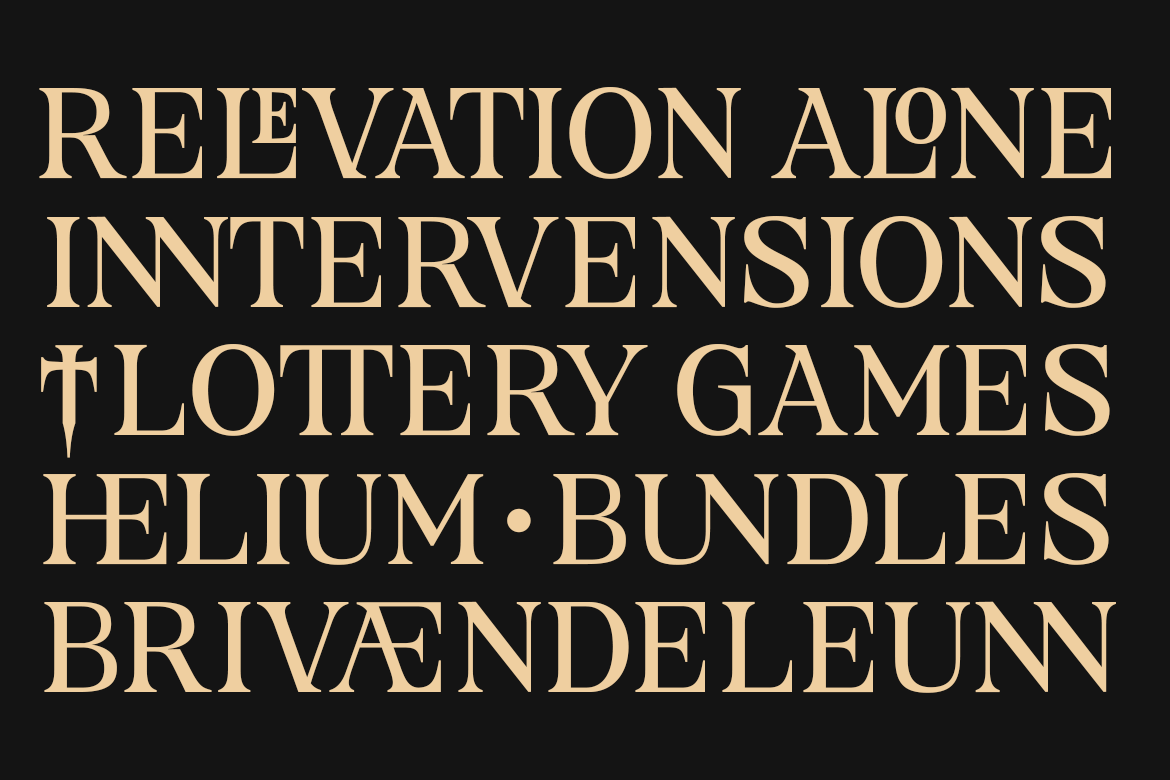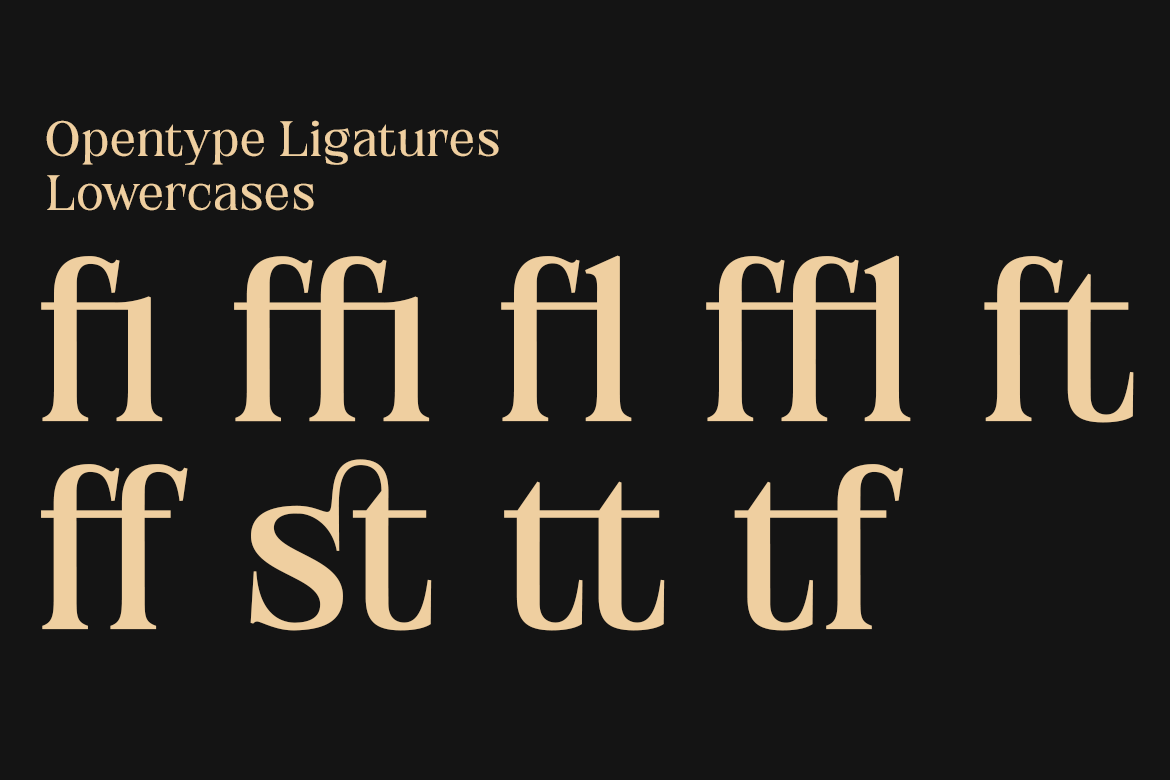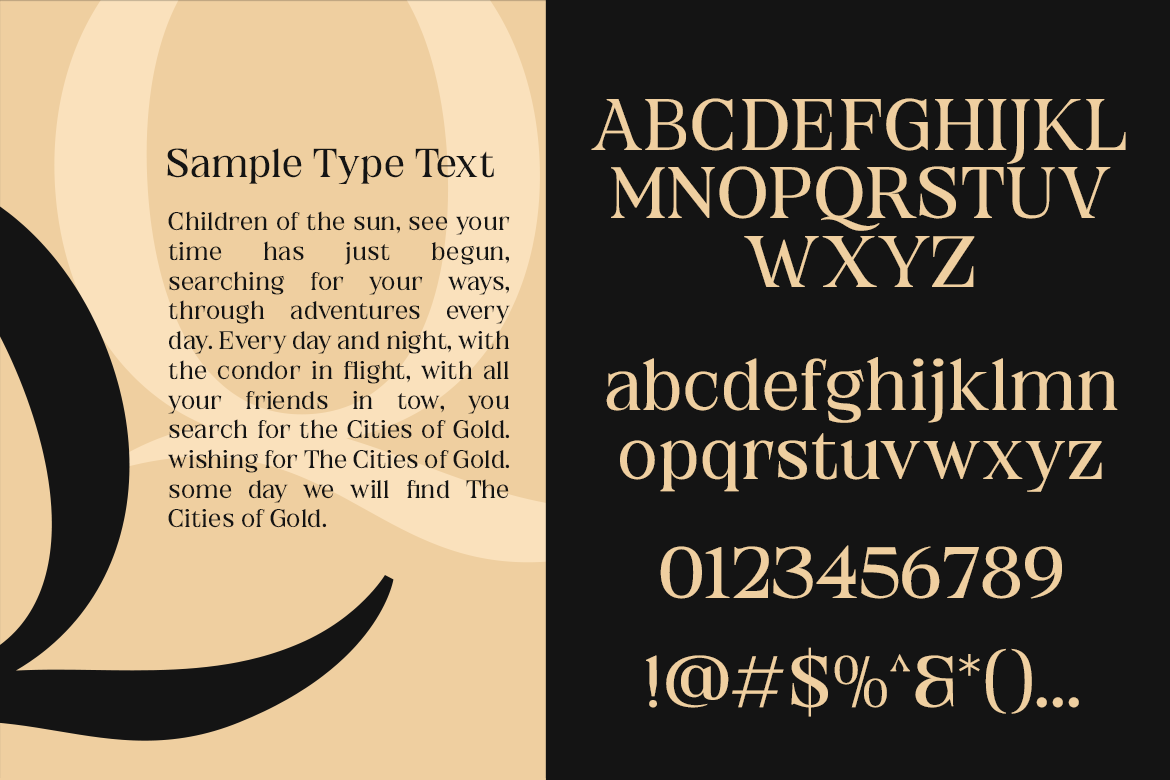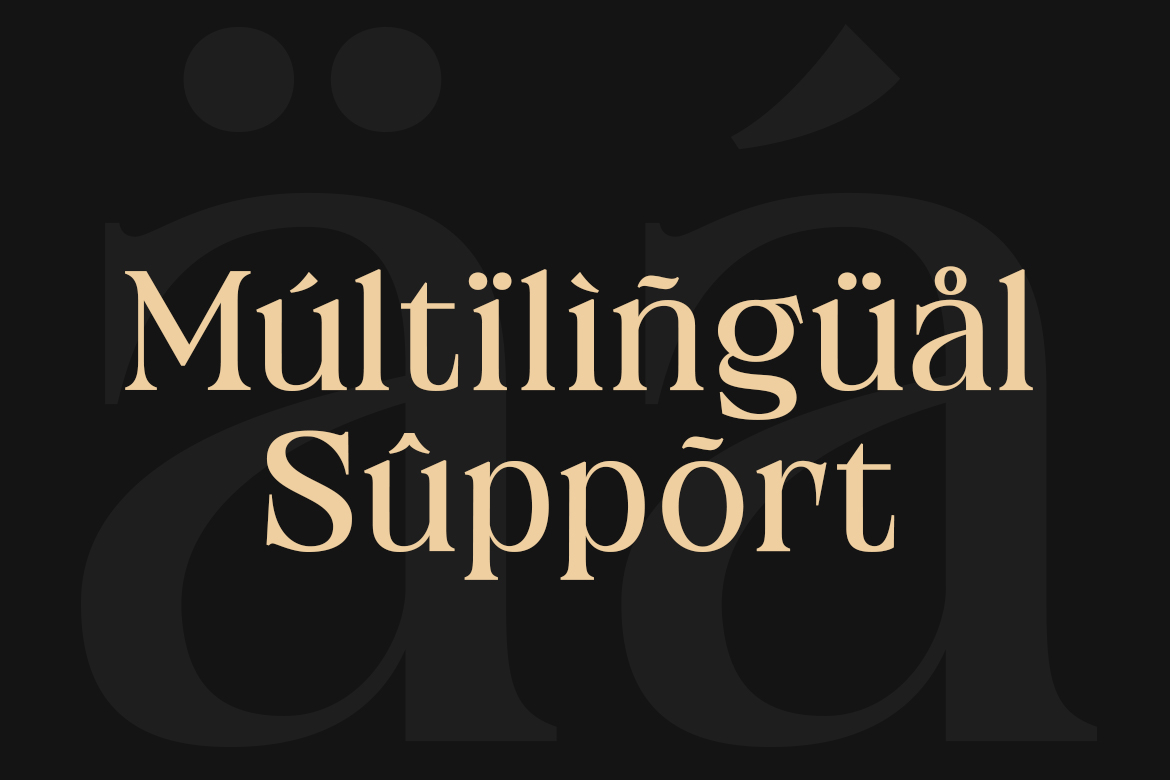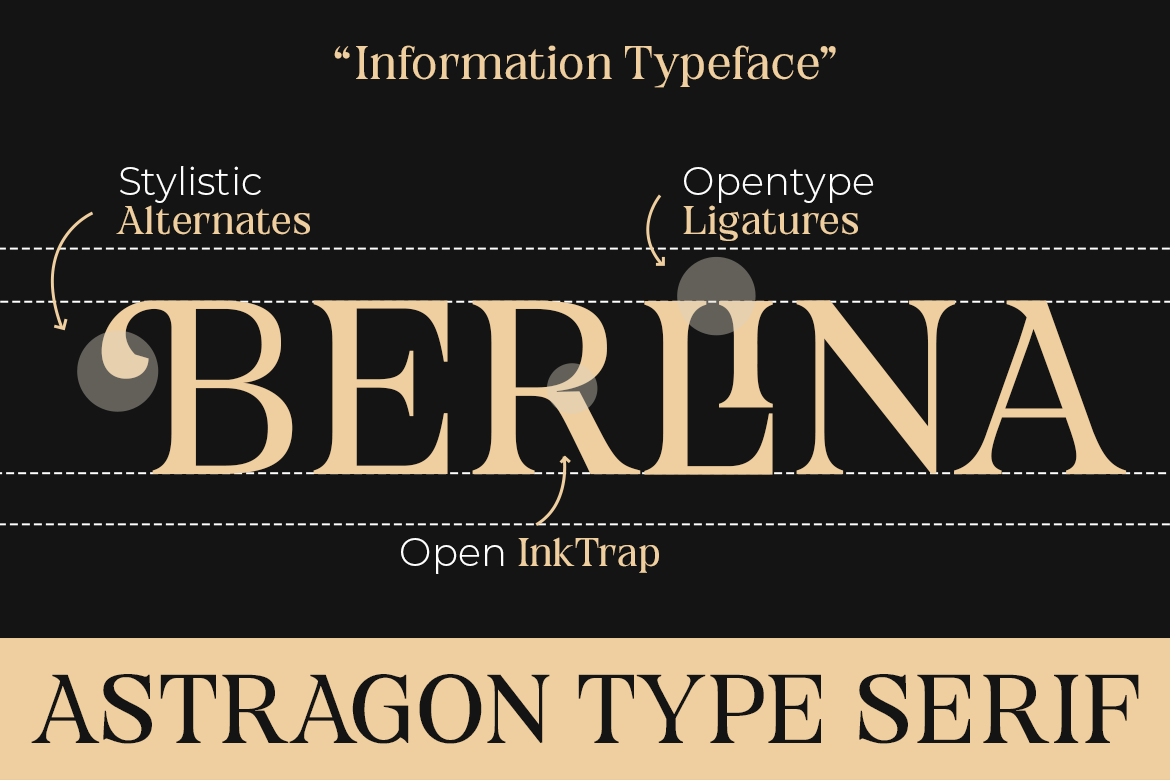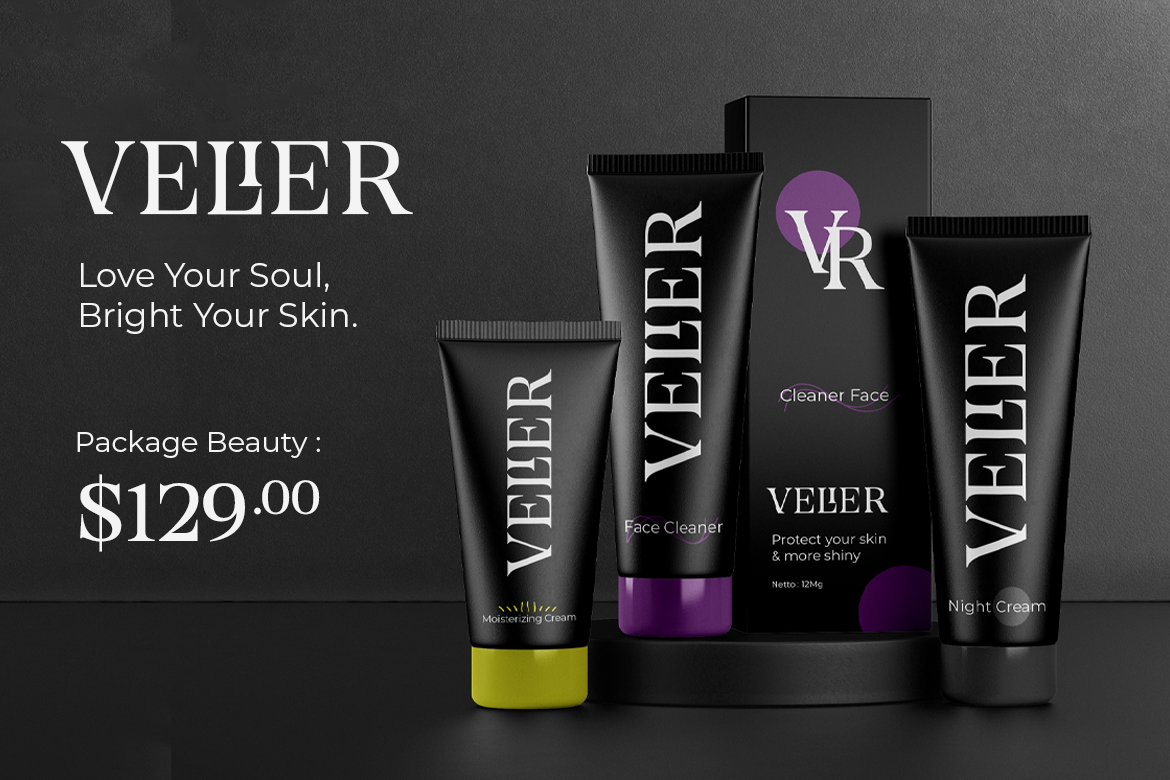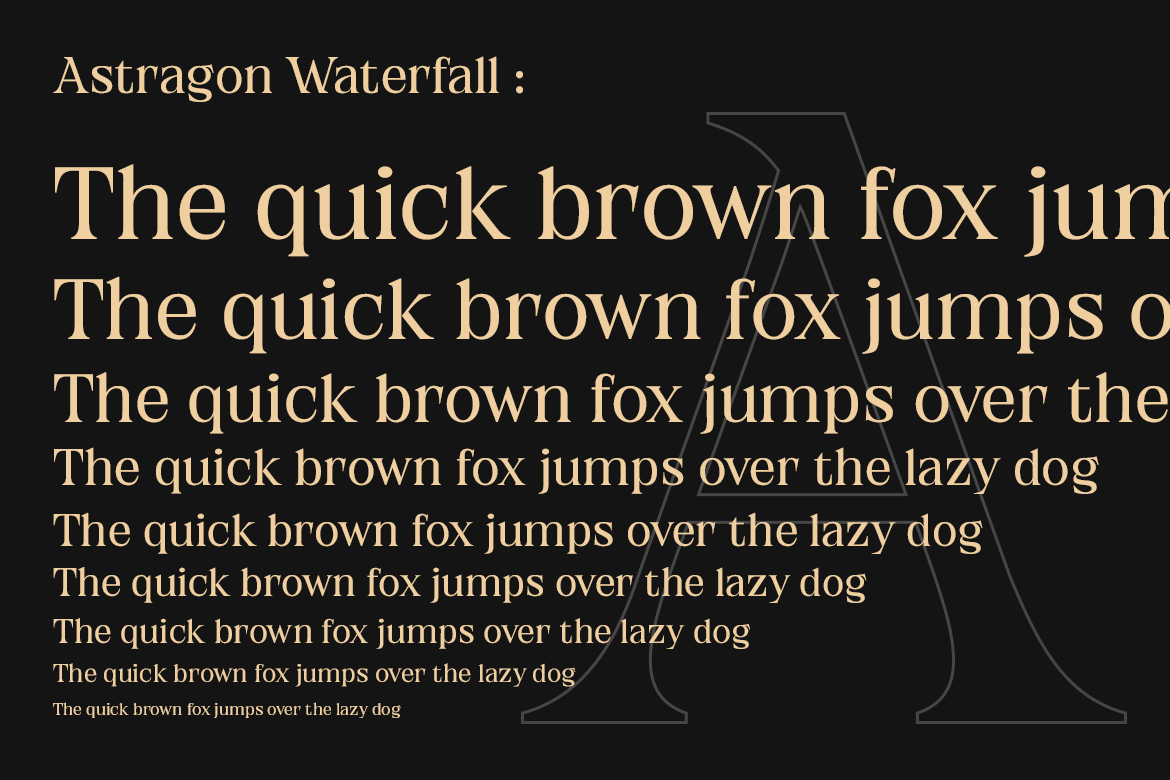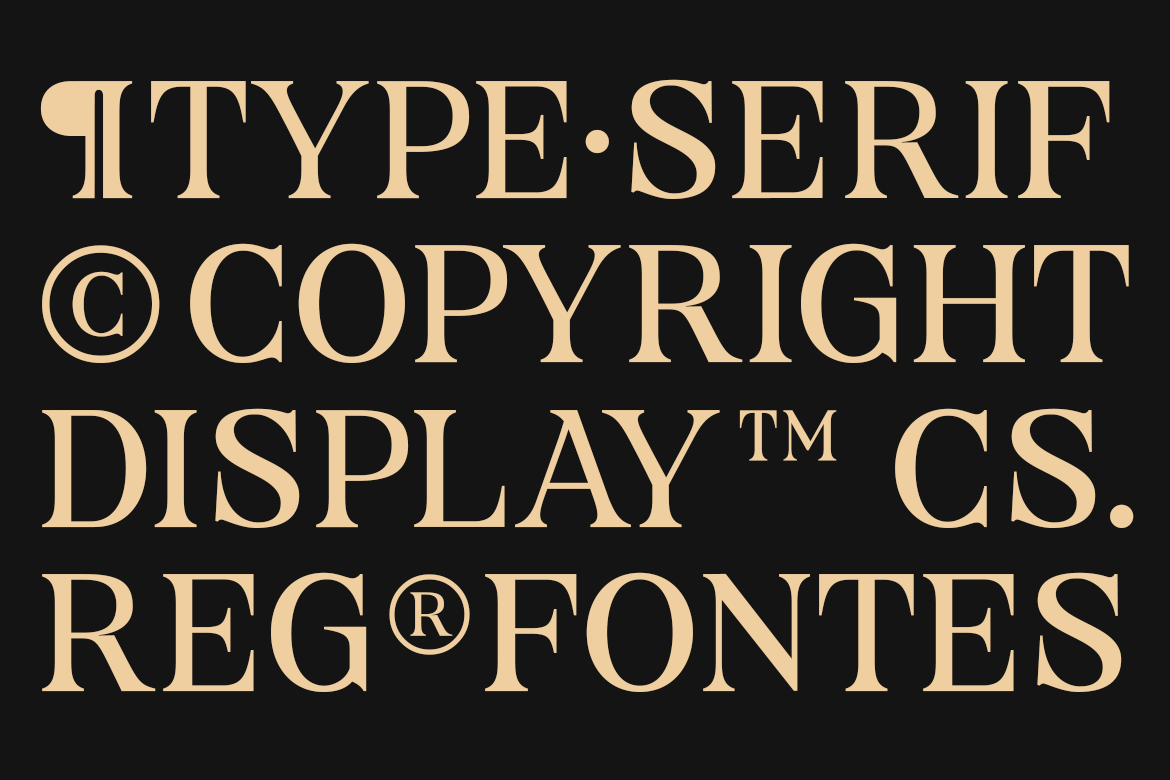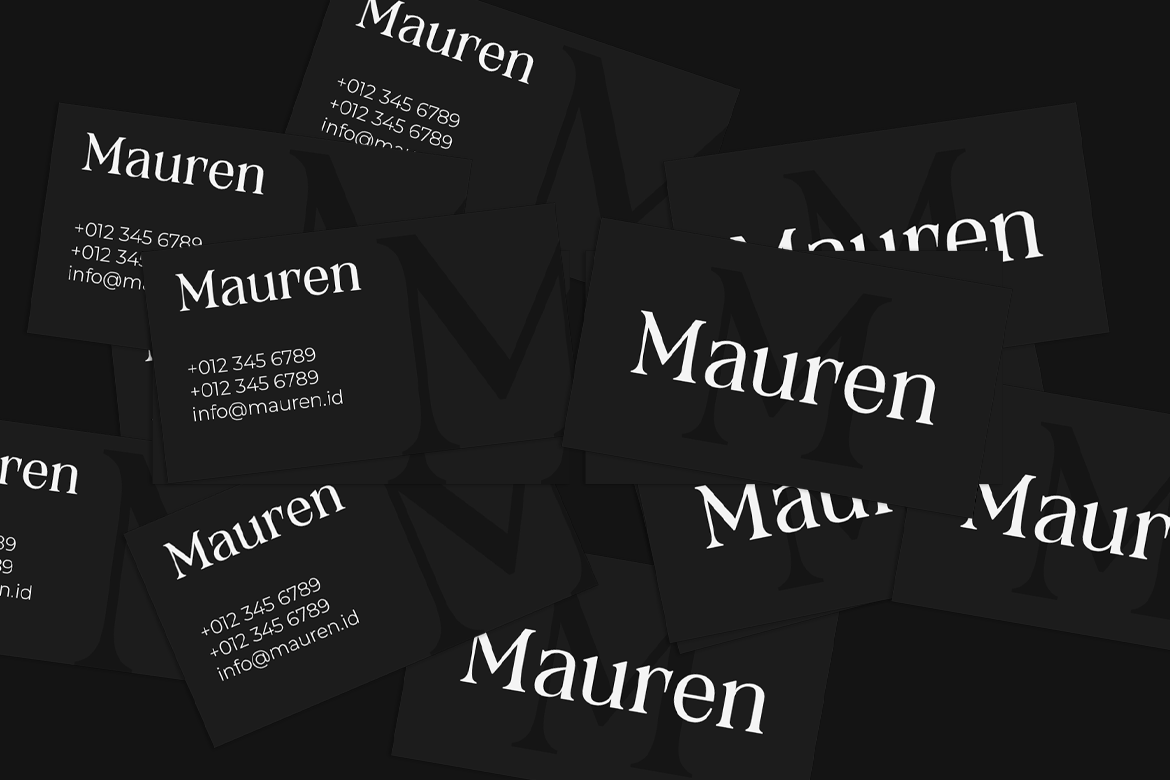
Astragon is a display serif font that radiates modern elegance and classic appeal. Perfect for any creative project, it adds a touch of sophistication and style.
Astragon’s balanced lines and refined serifs make it ideal for various applications, including greeting cards, packaging, brand identities, and posters. You can explore its versatility to create attractive, trendy designs.
Astragon Modern Serif